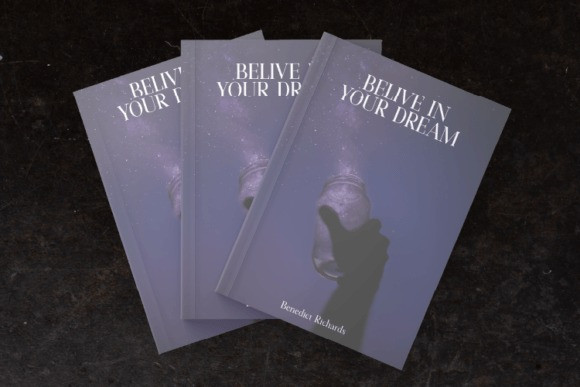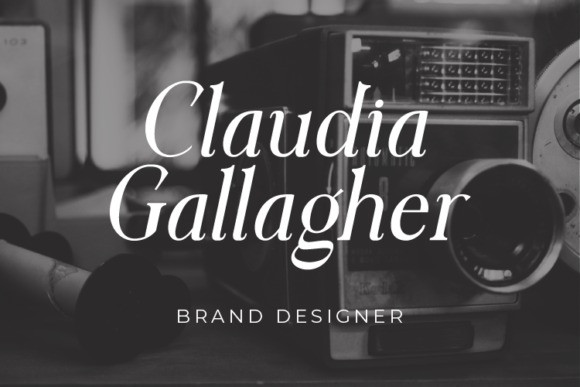
Cavergiz Font
Cavergiz Serif Font is a cool, thick lettered and assertive display font. Featuring the perfect amount of trendiness, this font will make your designs come to life. Cavergiz is PUA encoded which means you can access all of the glyphs.